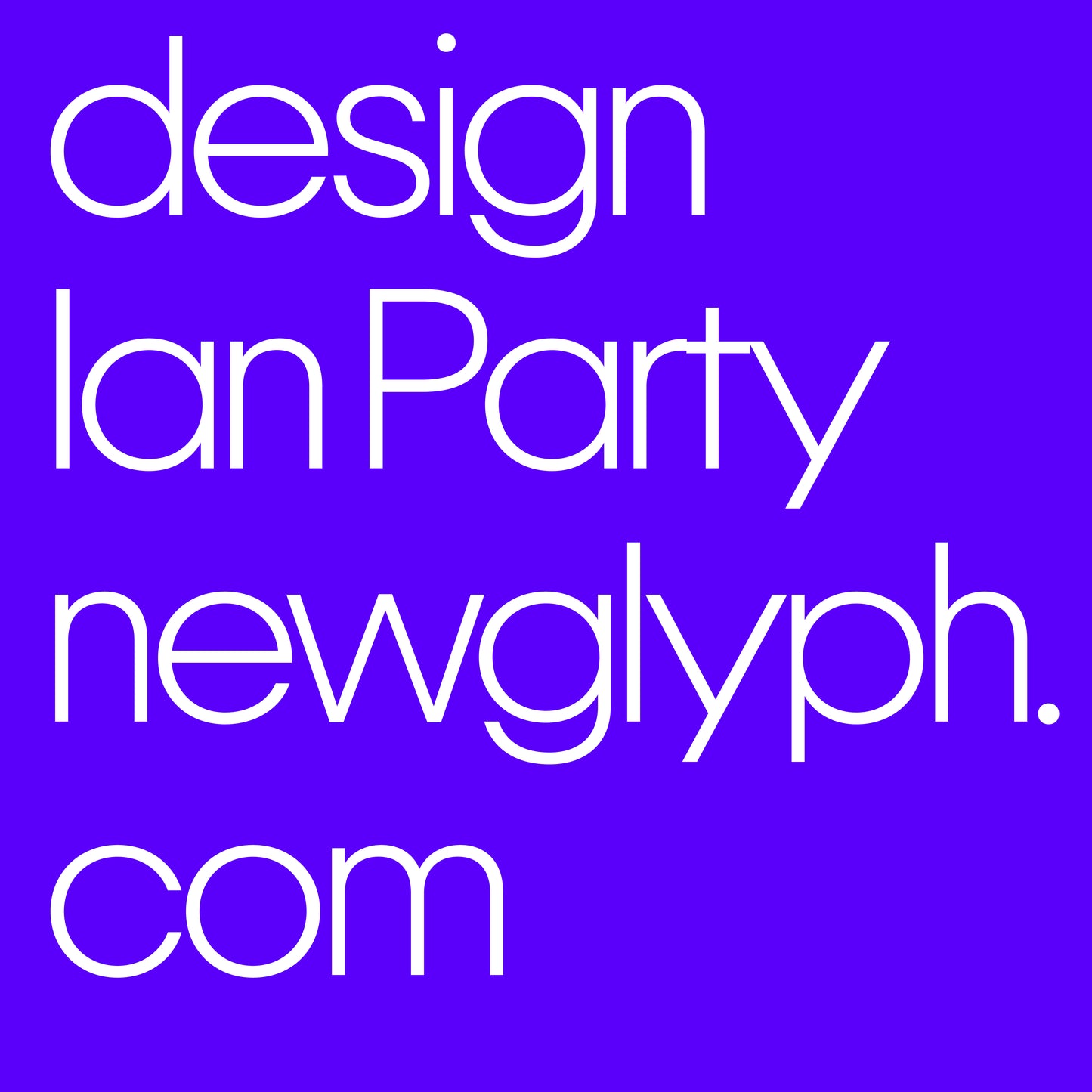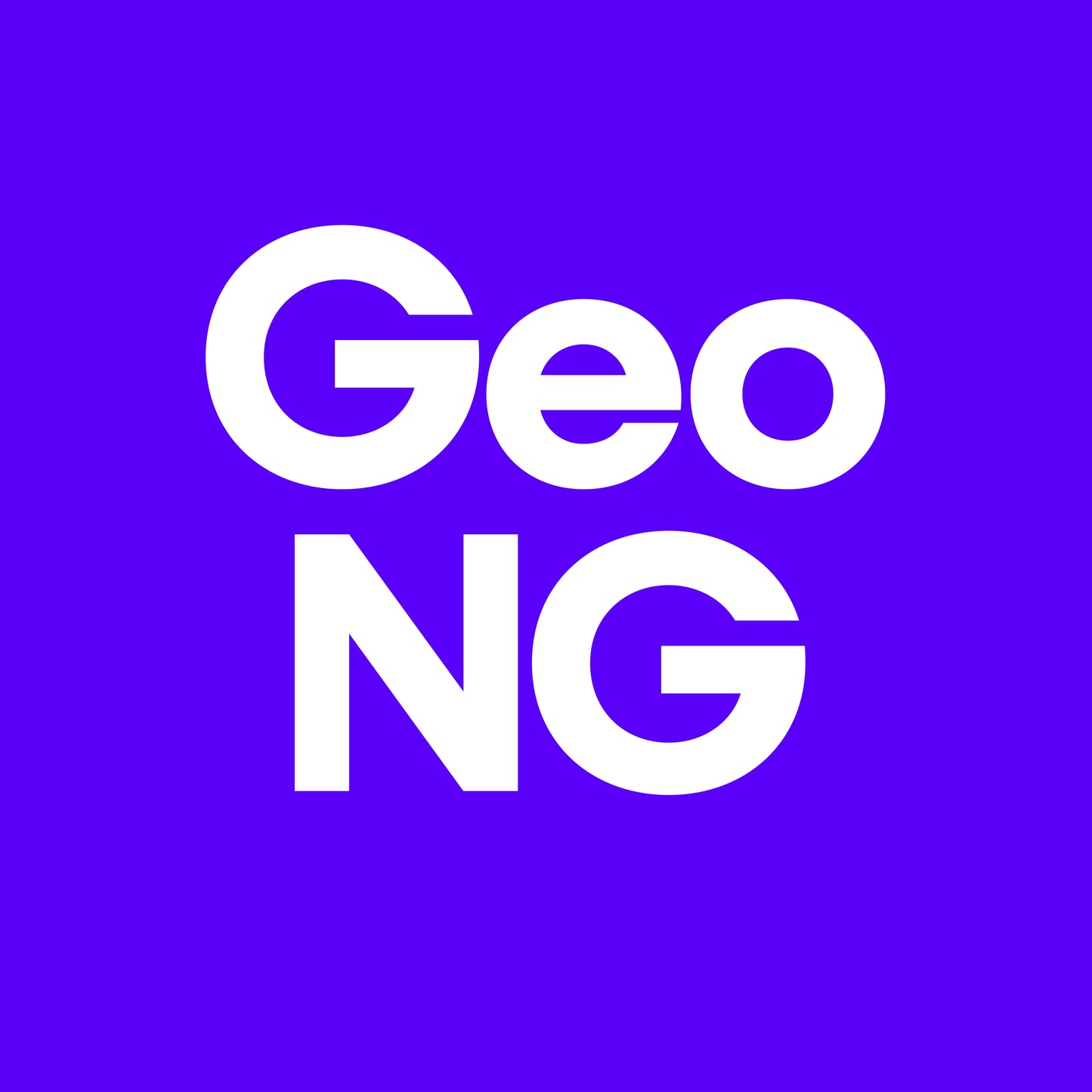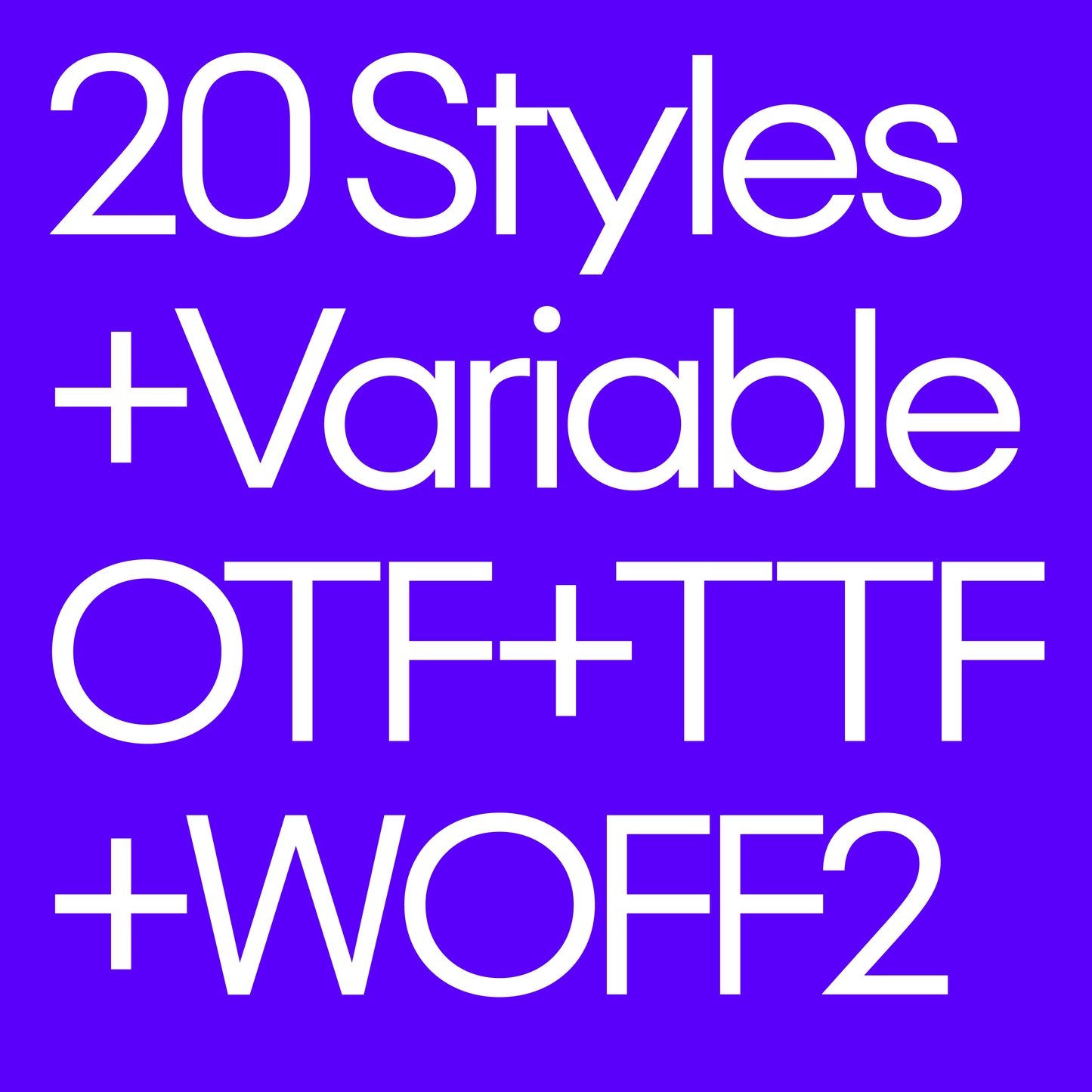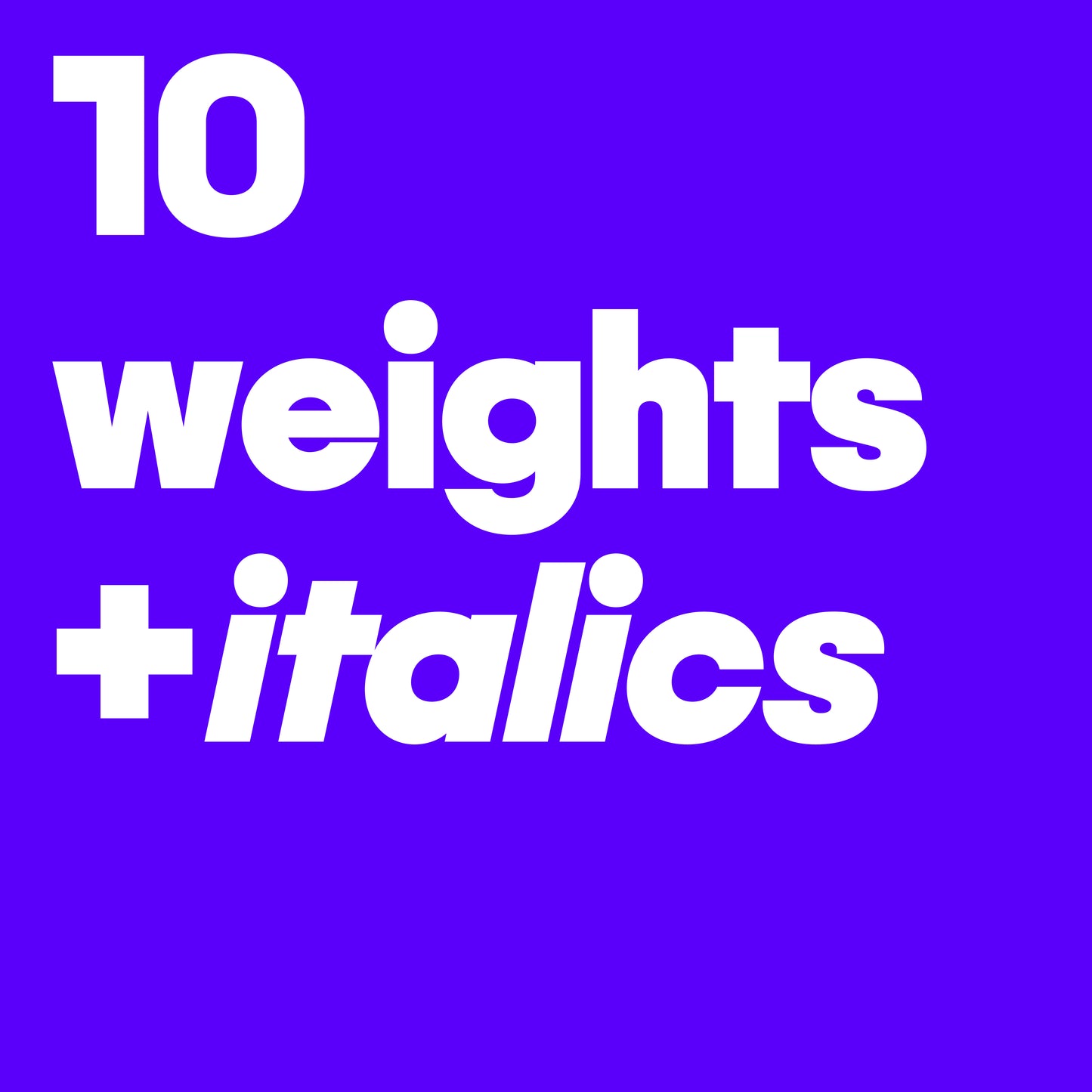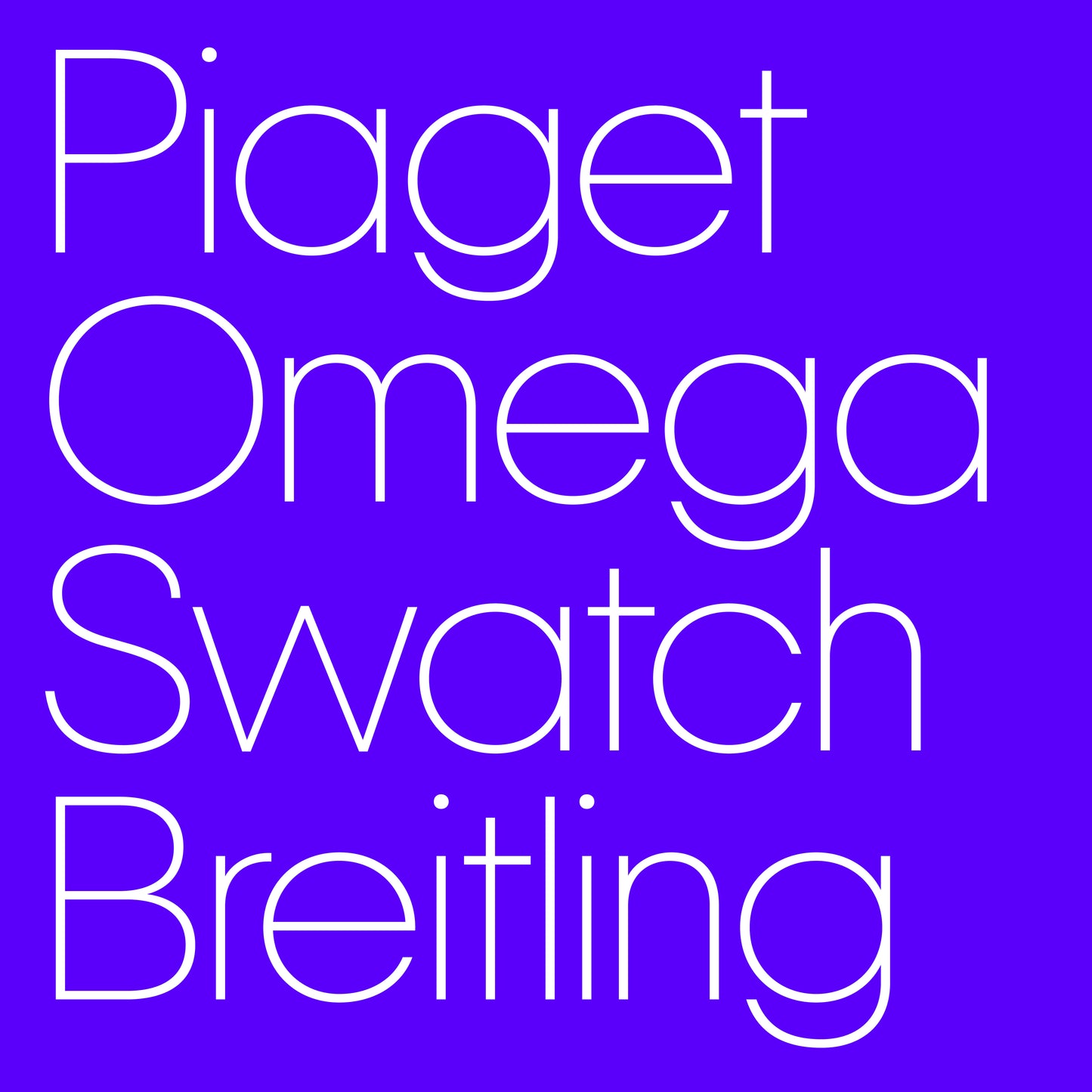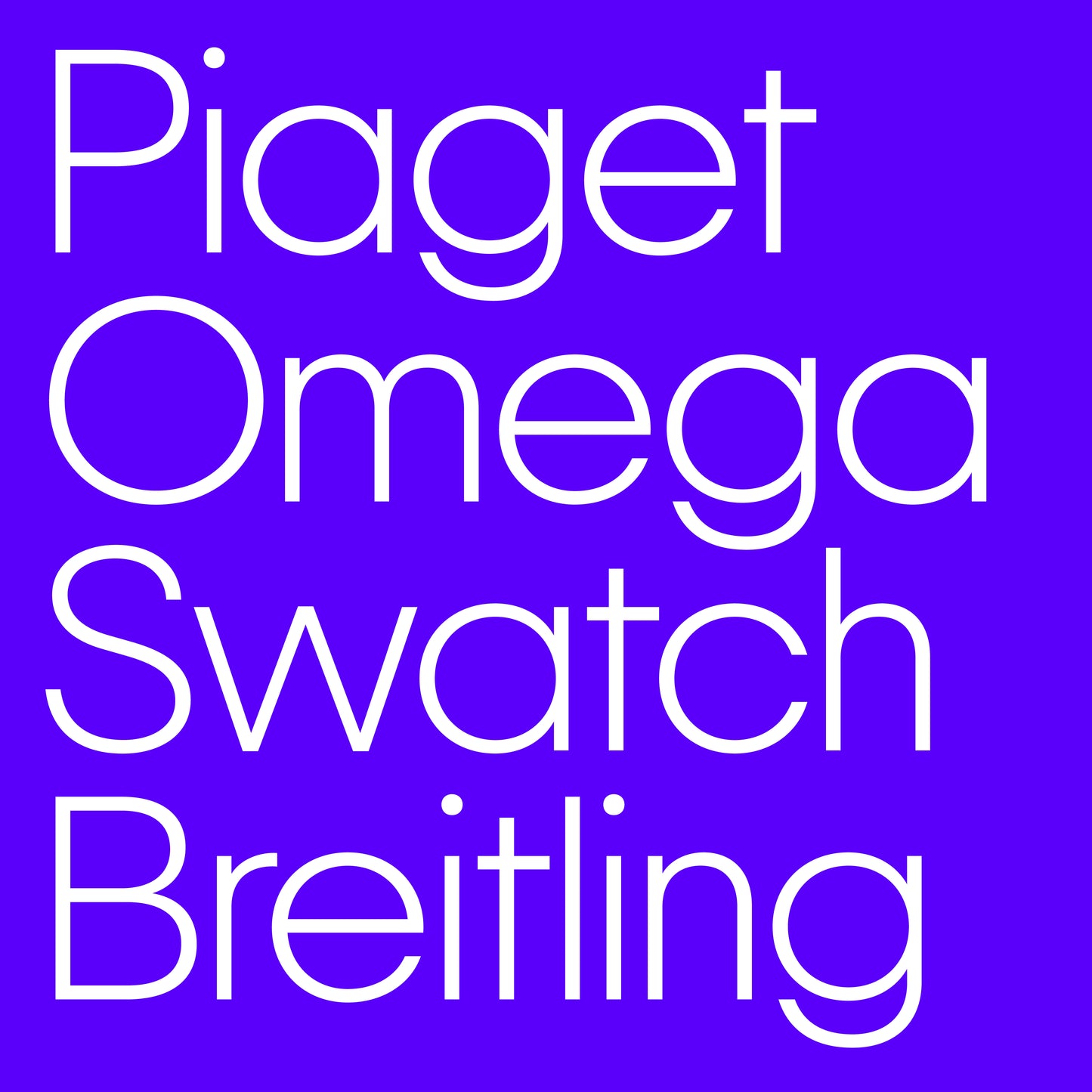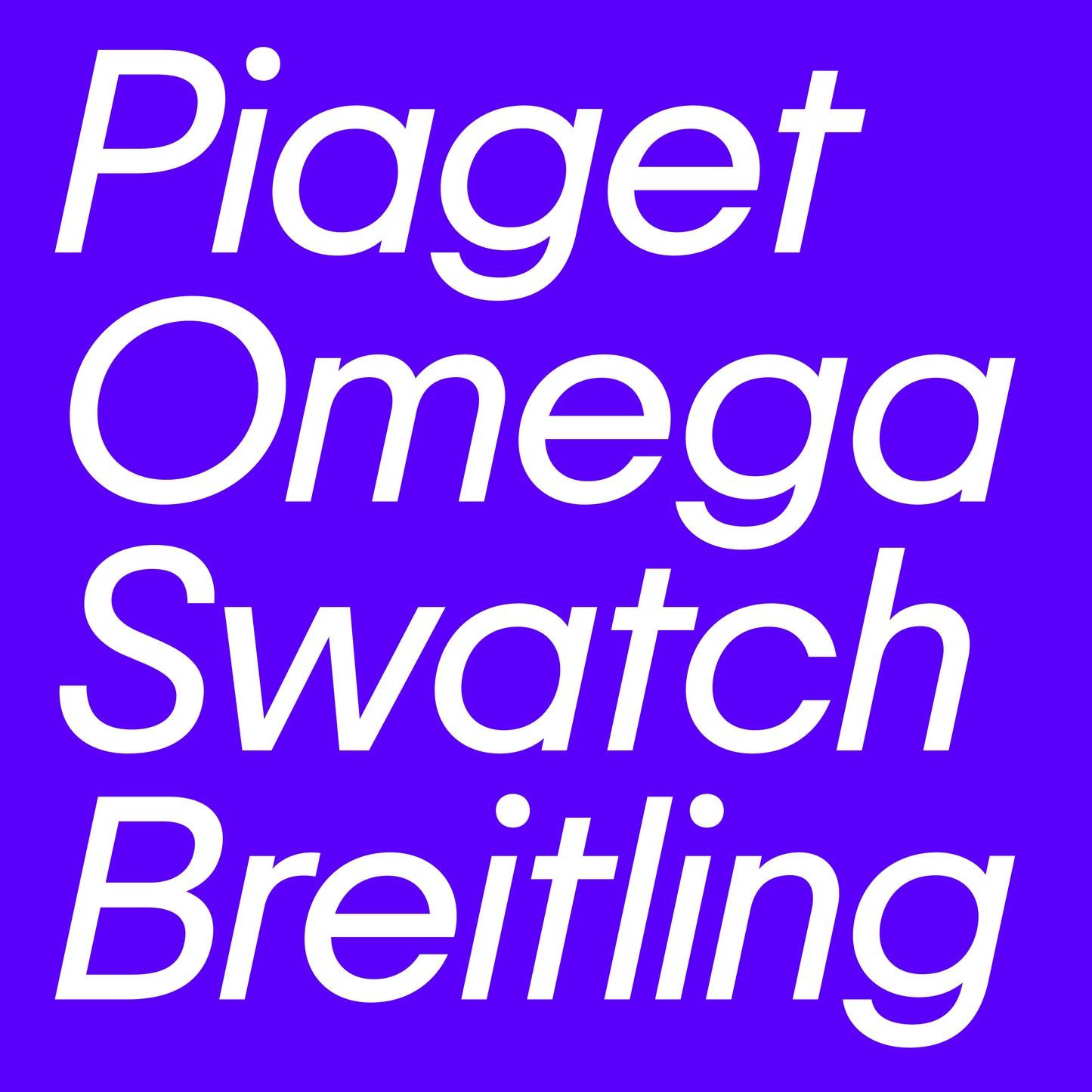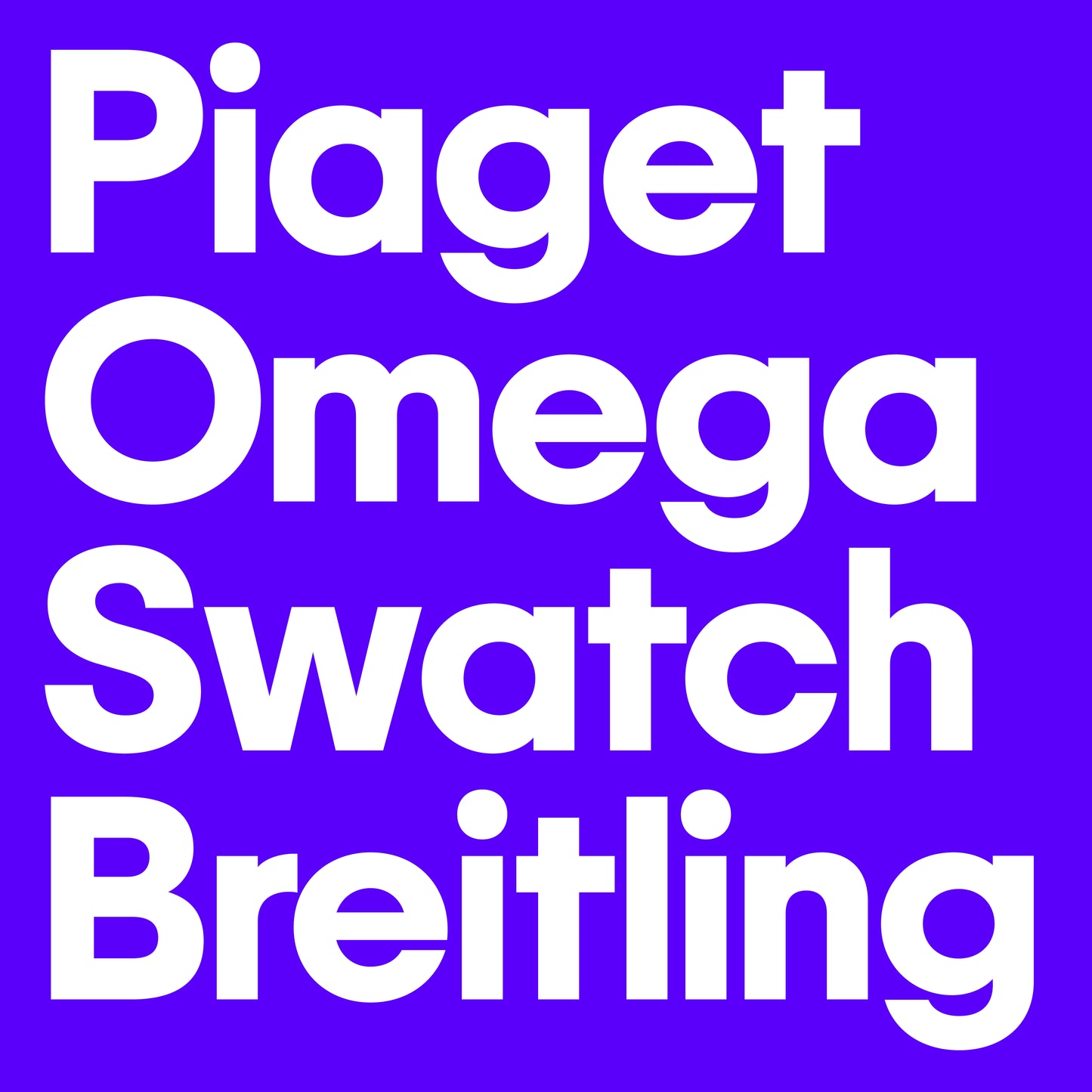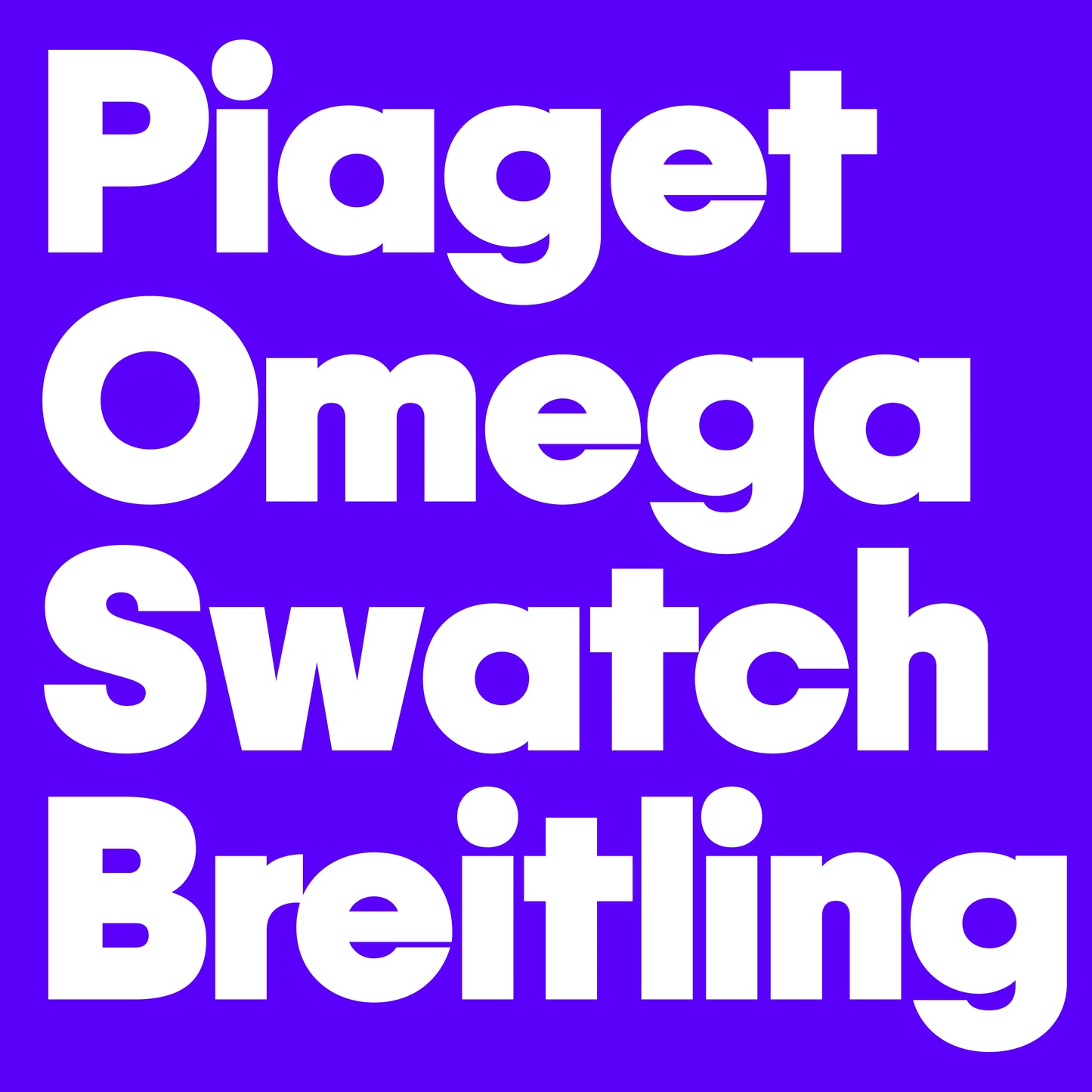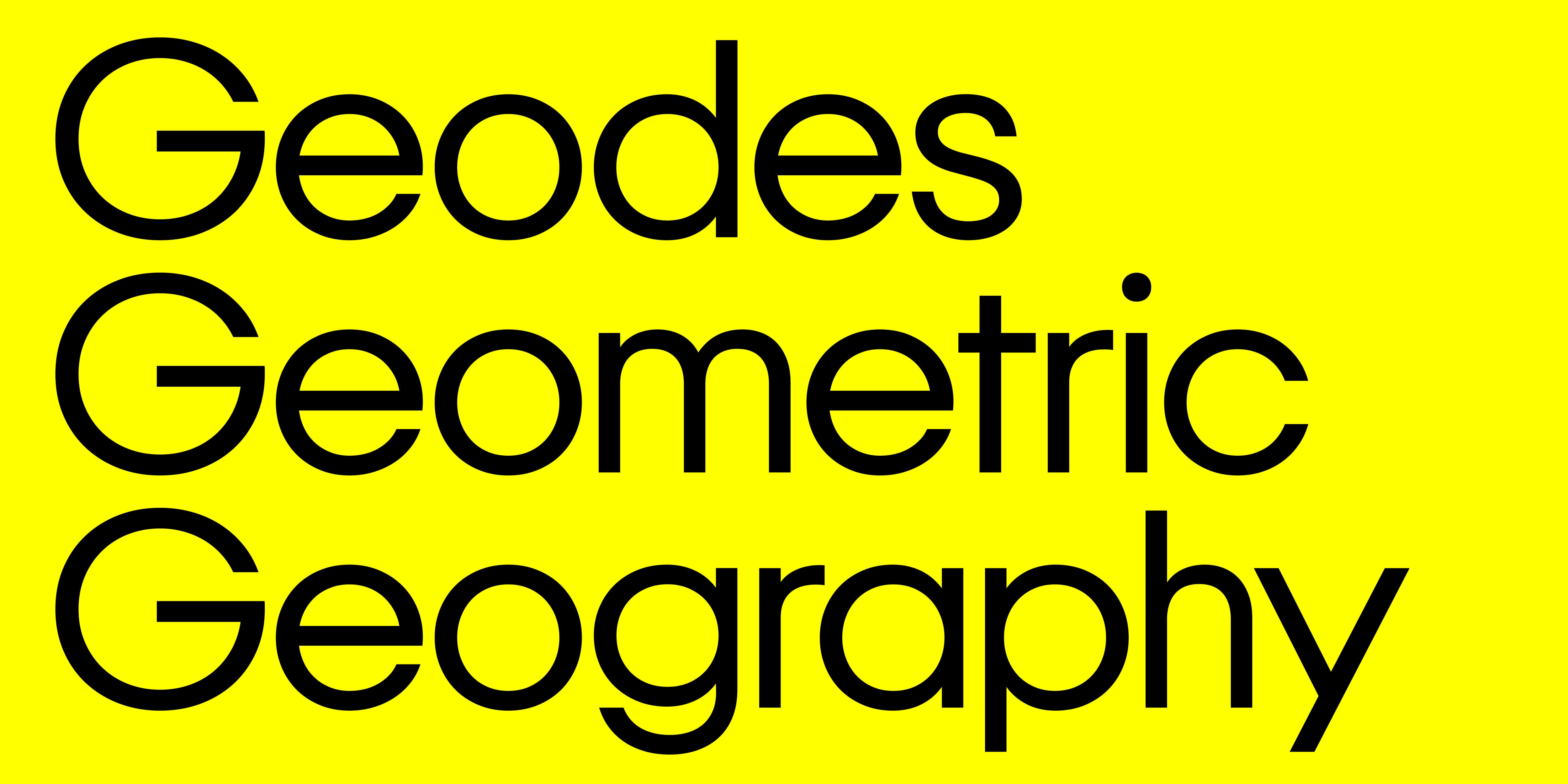
Geo NG
Geo NG, designed by Ian Party,  is a variable geometric sans-serif that blends modernist precision with contemporary adaptability. Rooted in the Bauhaus and early 20th-century geometric type movements, Neo NG embraces clean lines, even proportions, and minimal contrast, making it a versatile tool for forward-thinking designers.
Its foundation draws inspiration from the geometric purity of Futura, the structural clarity of Paul Renner’s work, and the bold modularity of mid-century typography. Yet, Neo NG takes it further—introducing subtle, unexpected twists that add warmth and originality to its form. The result is a typeface that feels equally at home in branding, digital interfaces, editorial layouts, and motion graphics.
As a variable font, Neo NG gives you complete control over weight and width, allowing seamless customization for both impactful headlines and refined body text. With 20 styles and 392 glyphs per style, it adapts effortlessly to both minimalist compositions and dynamic, high-energy designs.